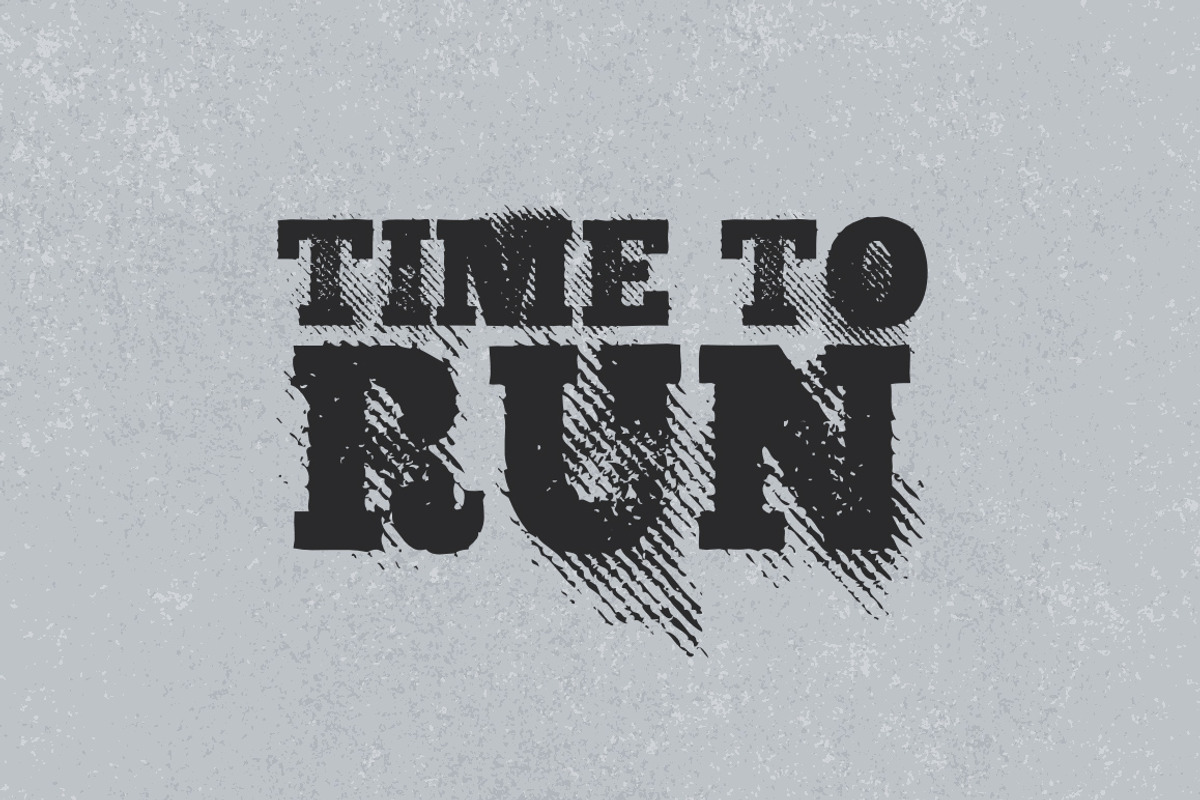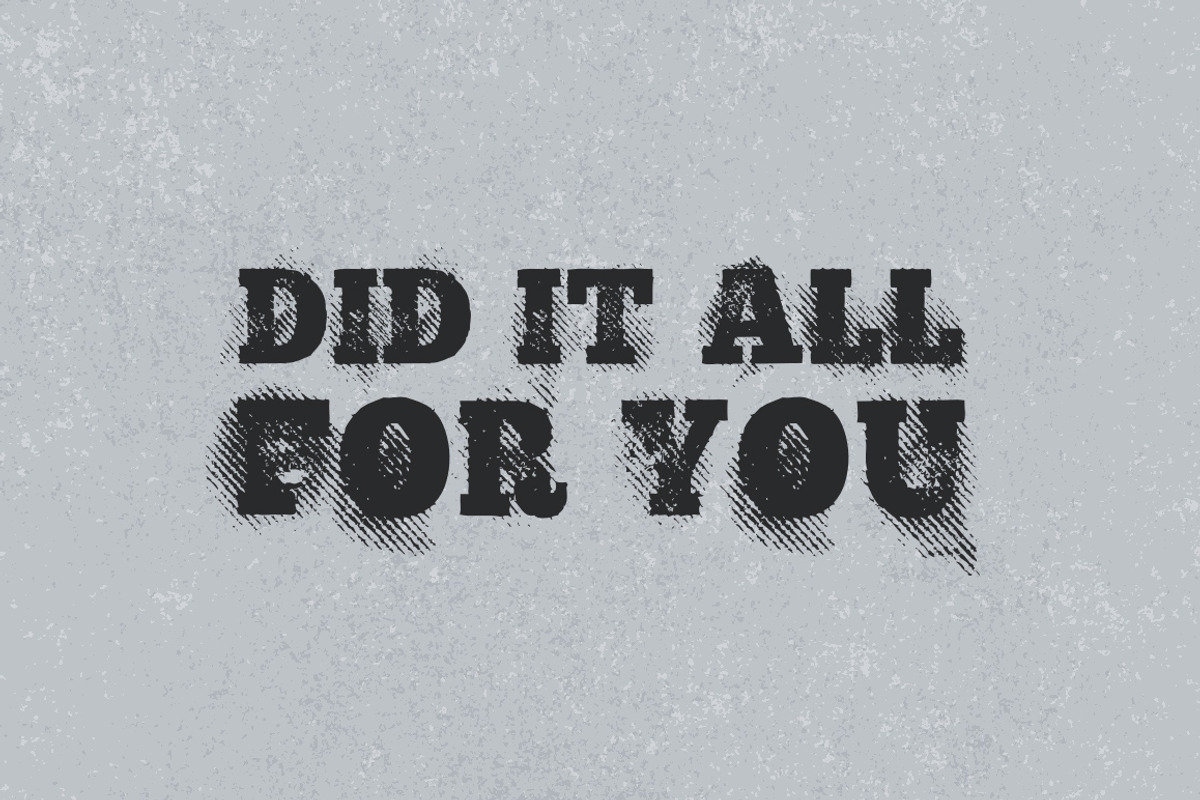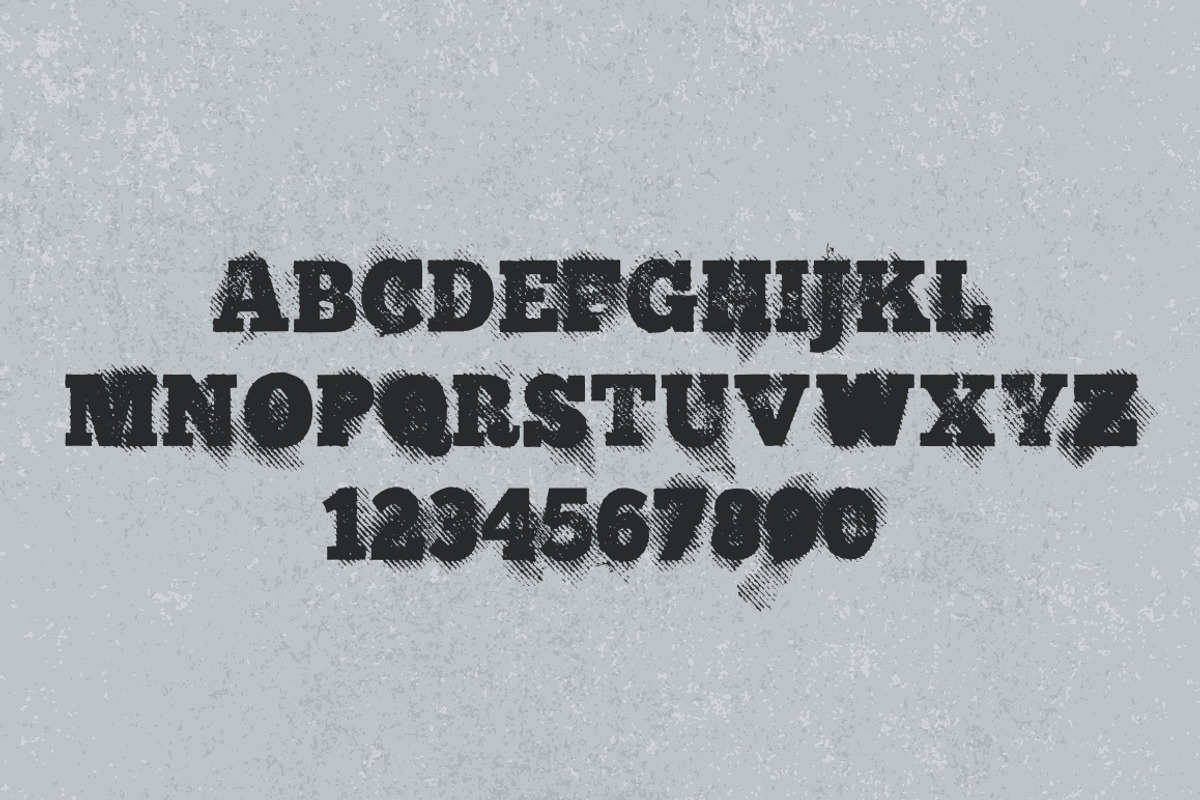
Time To Run - Gritty Halftone Font
Time To Run - Gritty Halftone Font by WeGraphics is a font selected for branding, posters, packaging, typography.
Why Time To Run - Gritty Halftone Font is worth a look
Time To Run - Gritty Halftone Font by WeGraphics fits naturally into Branding, posters, packaging, typography.